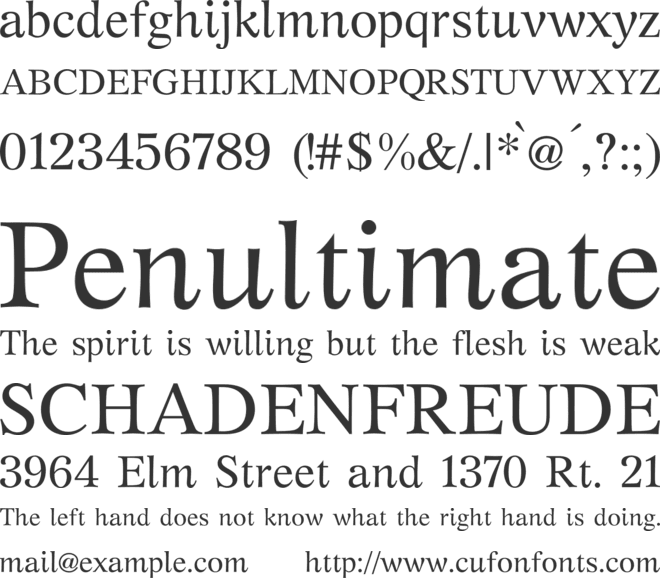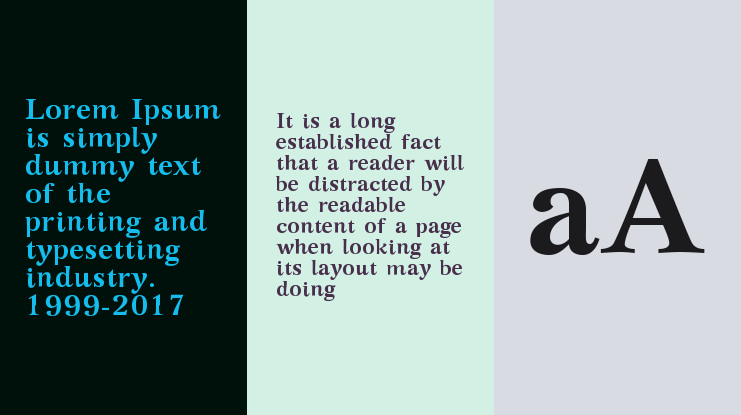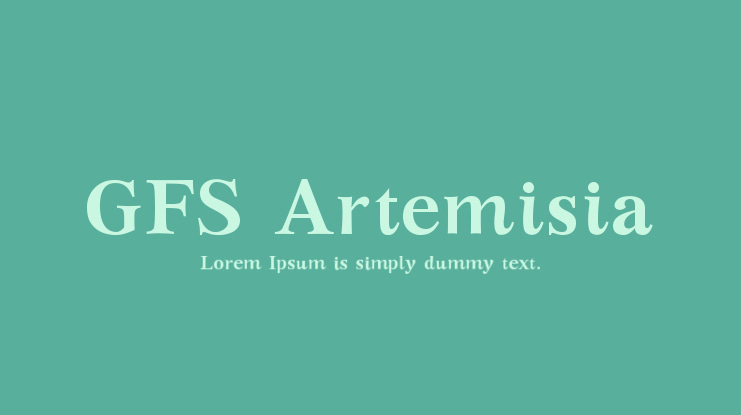
Takis Katsoulidis and George D. Matthiopoulos
A slightly calligraphic book face family with Greek and Latin alphabets for a wide range of uses. Designed by the painter-engraver Takis Katsoulidis; digitized by George D. Matthiopoulos.